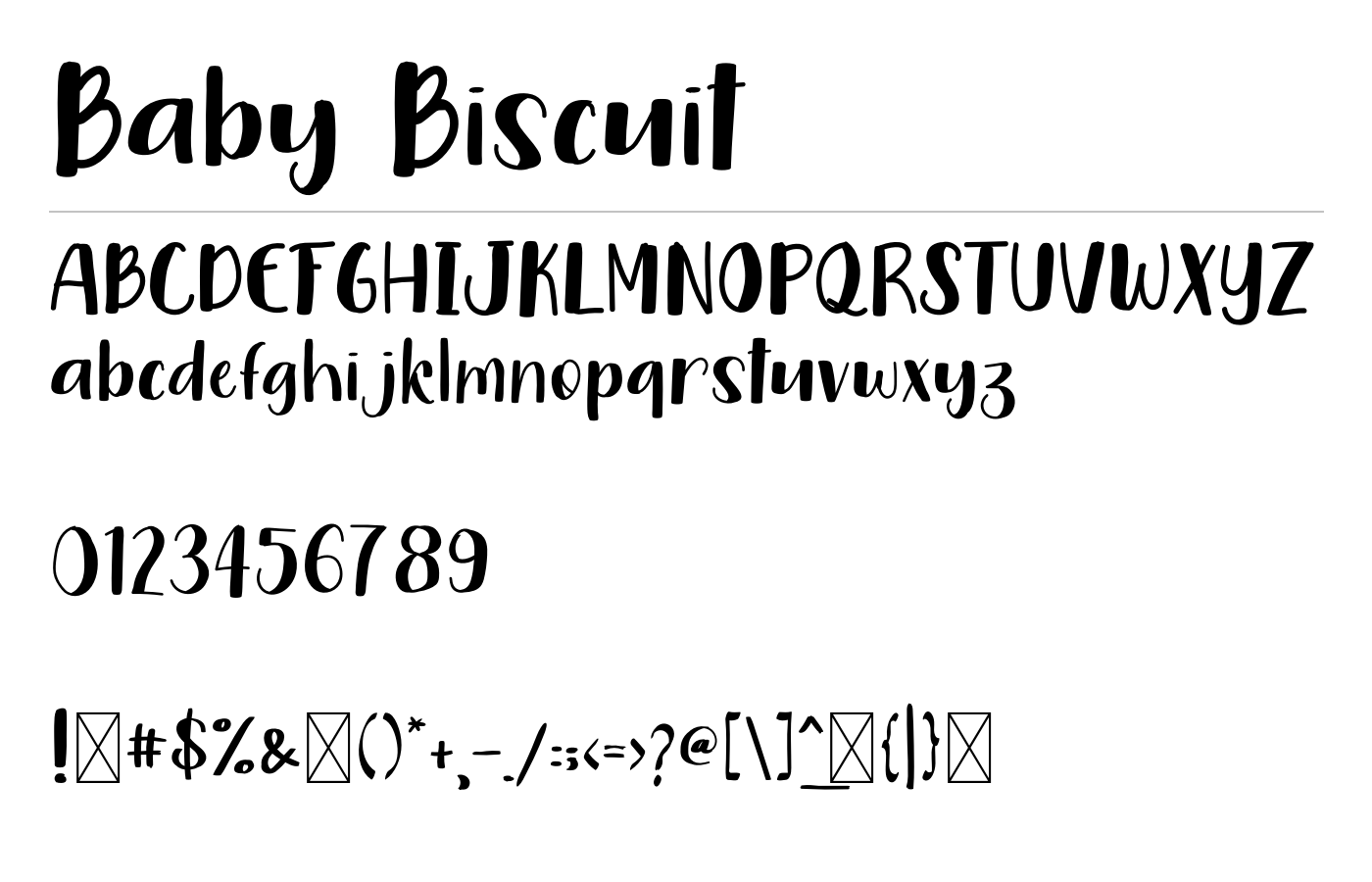
Baby Biscuit is a playful and casual script font with a hand-drawn feel, featuring rounded, bold strokes and varying thickness that add warmth and charm. Its lively, friendly characters work well for children’s products, informal branding, and creative projects where a fun and approachable personality is needed. This font shines in headlines, invitations, and packaging where a joyful and personal touch is desired.
Baby Biscuit Font
About Baby Biscuit Font